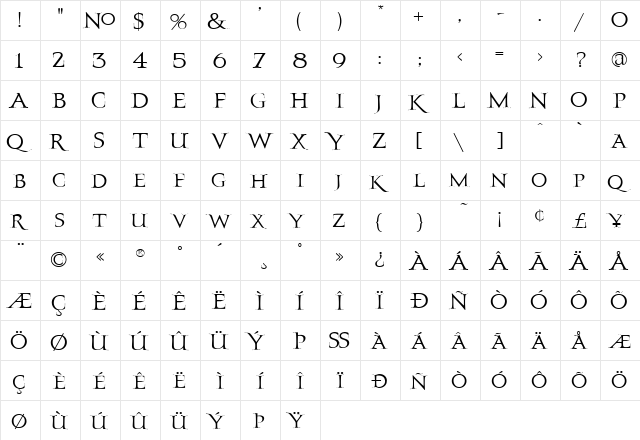
LHF Larcher Roman Regular
Design Context for LHF Larcher Roman Typeface
LHF Larcher Roman offers clean, dependable letterforms without strong stylistic allegiance, making it a practical choice for designers who need flexibility.
Pro Tip: Pair LHF Larcher Roman with a font of contrasting weight or personality to build a more expressive typographic hierarchy.